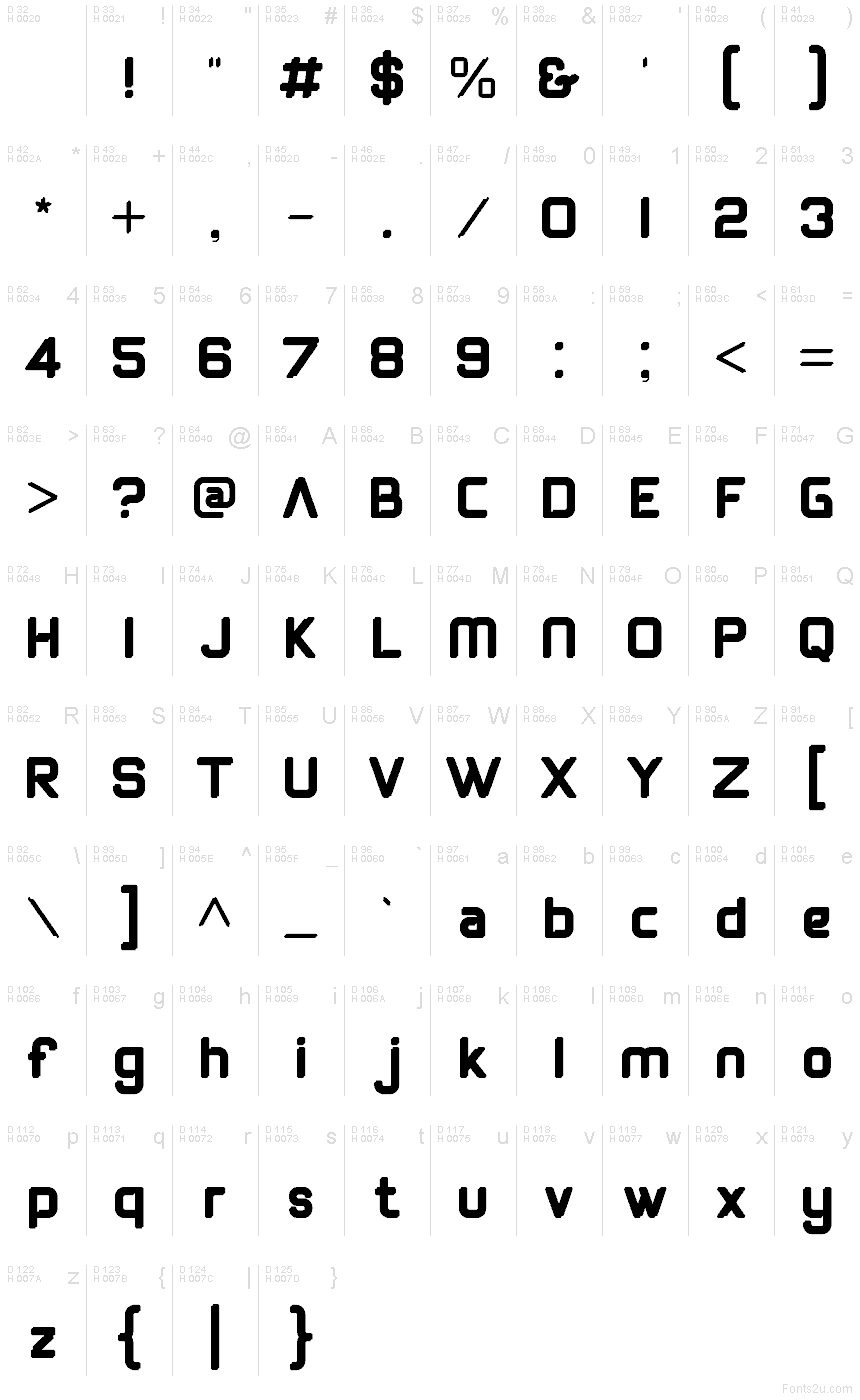
Arelv Regular
Arelv font by Ermedia Studio is a free futuristic display font that fuses knife‑edge diagonals with rounded, blocky curves. Its signature chiseled cut-ins and sturdy, wide stance create a bold rhythm that reads crisp at a glance while feeling sleek and sci‑fi up close.
Using Arelv, headlines lock together with confident spacing, and the angular-meets-soft silhouette adds instant tech energy without turning cold. This free font shines on esports branding, sci‑fi posters, tech product packaging, game UIs, streaming overlays, and bold event titles. Keep it large, add a touch of tracking for air, and pair with a light geometric sans to let the sculpted forms do the heavy lifting.